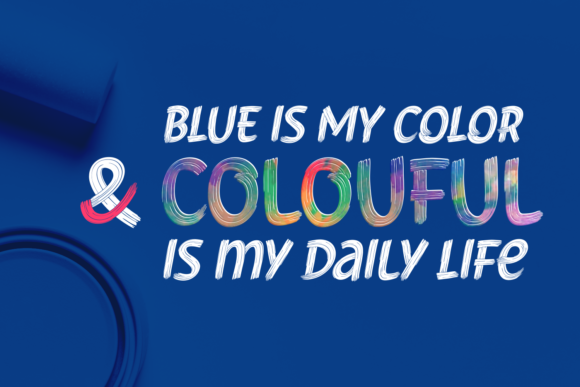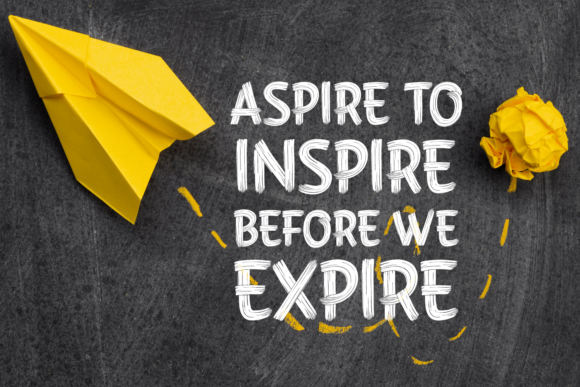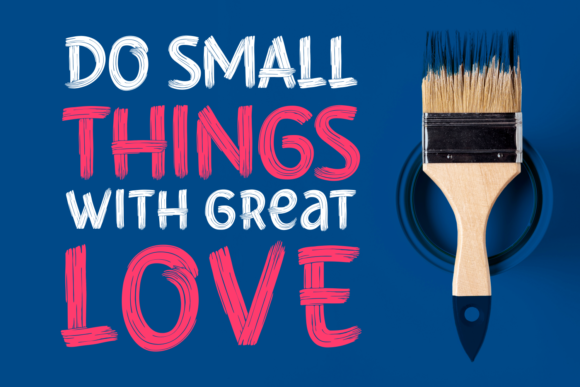
Introduction to Ora Kuas Font
Ora Kuas is a distinct, elegant display that blends traditional influences into a contemporary aesthetic.
Its well balanced Latin details contain distinctive contrasts Use Ora Kuas to achieve an exquisite, yet subtle look and maximum versatility.